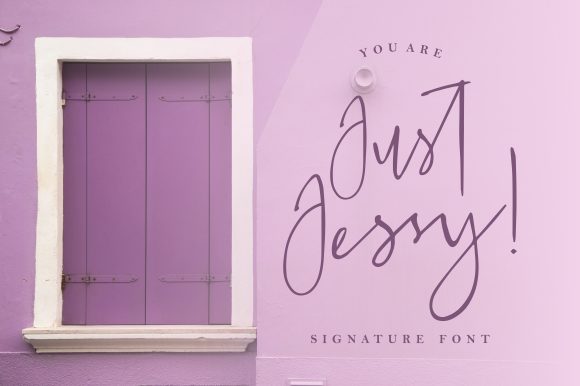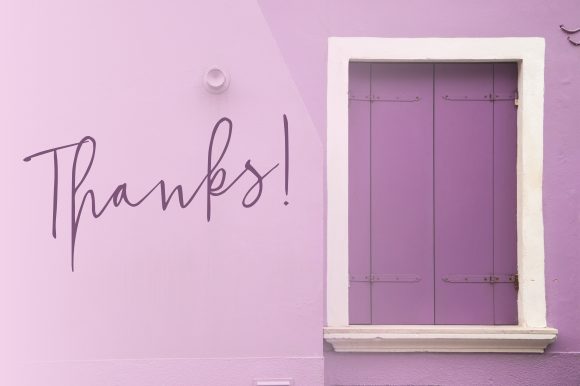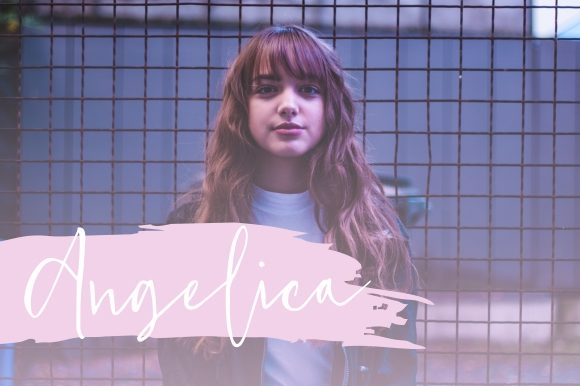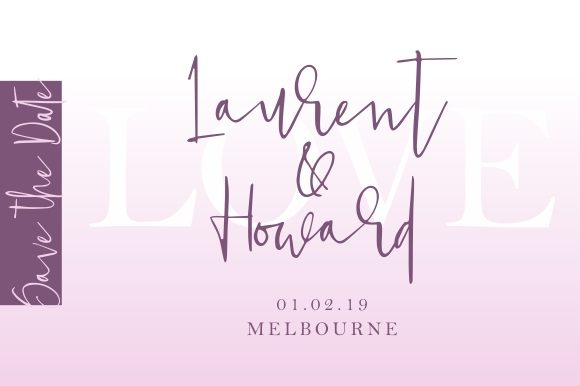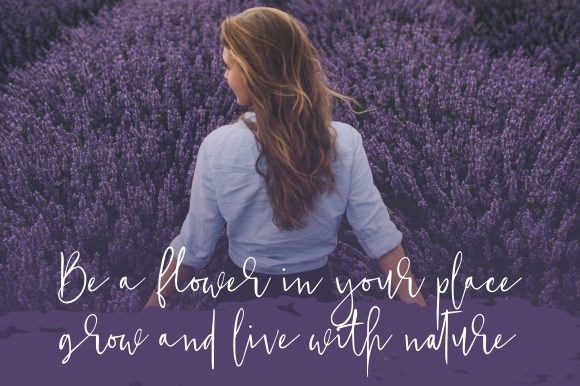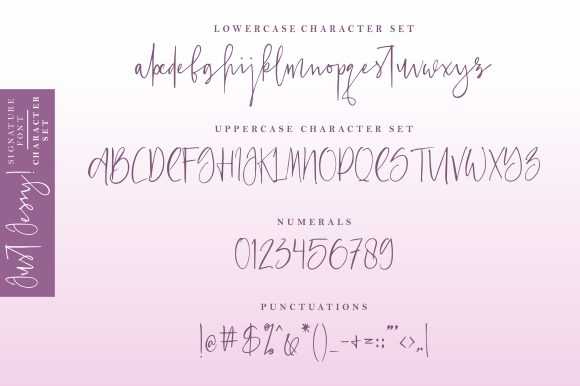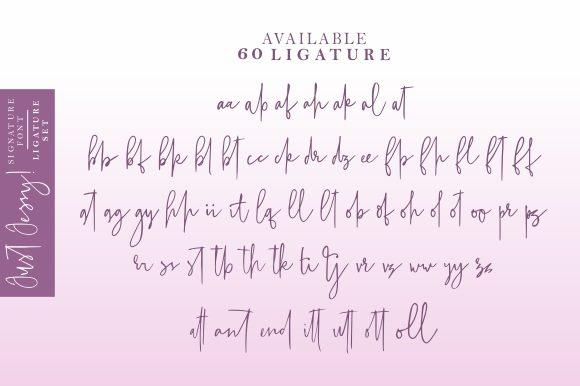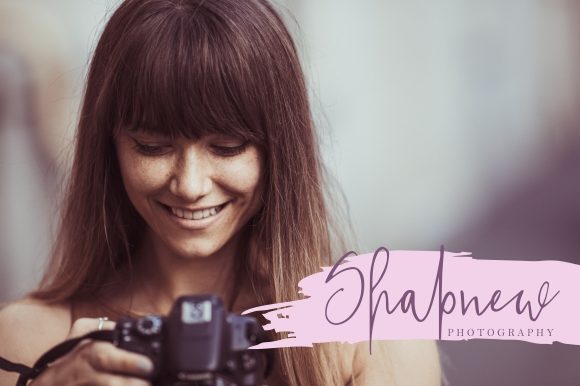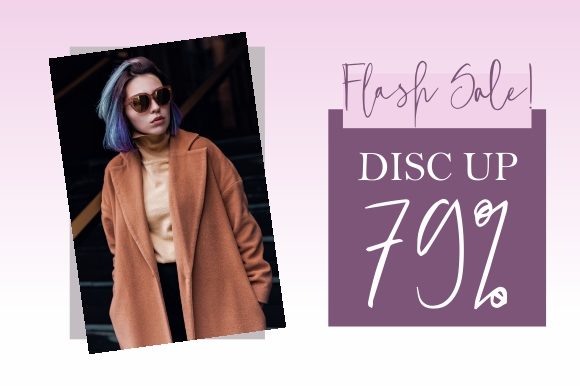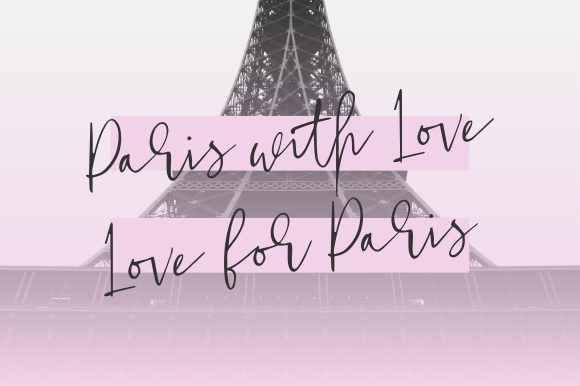
Just Jessy Font
About Just Jessy Font
Just Jessy is a beautiful signature font. It has elegant lines that makes it perfect for designing your personal brand, but it can also give a feminine touch to logos, invitations, stationery, wedding designs, social media posts, advertisements, and much more!